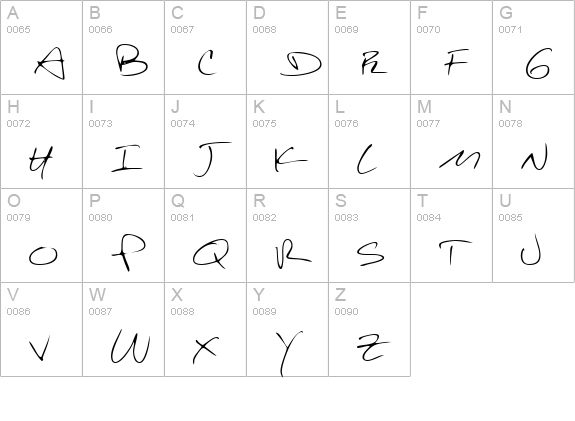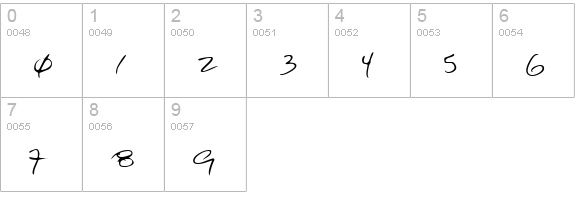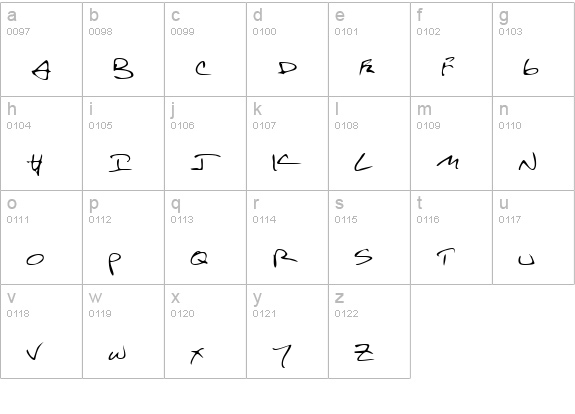
KelseysHand Regular Font Details
KelseysHand Regular is the standard, neutral variant in the KelseysHand typeface family \xE2\x80\x94 well suited to general body text, paragraphs, and standard typographic work.
KelseysHand Regular is a beautifully crafted font that captures the elegance and sophistication of handwritten calligraphy. With its graceful curves and delicate strokes, this font adds a touch of class to any project. Whether you're designing wedding invitations, creating a logo for a high-end brand, or simply adding a personal touch to your digital creations, KelseysHand Regular is the perfect choice. But what makes KelseysHand Regular even more appealing is the fact that it is free! Yes, you read that right. This stunning font is freely available to download at FontsMarket.com. Now you can add a touch of luxury to your designs without breaking the bank. With KelseysHand Regular, you'll have access to a versatile typeface that is suitable for a wide range of design projects. Its clean and legible letters make it ideal for body text, while its intricate details make it a standout choice for headlines and titles. Whether you're designing for print or digital media, KelseysHand Regular is sure to make your work shine. Don't miss out on this opportunity to elevate your designs with KelseysHand Regular. Download it for free today at FontsMarket.com and let your creativity soar.